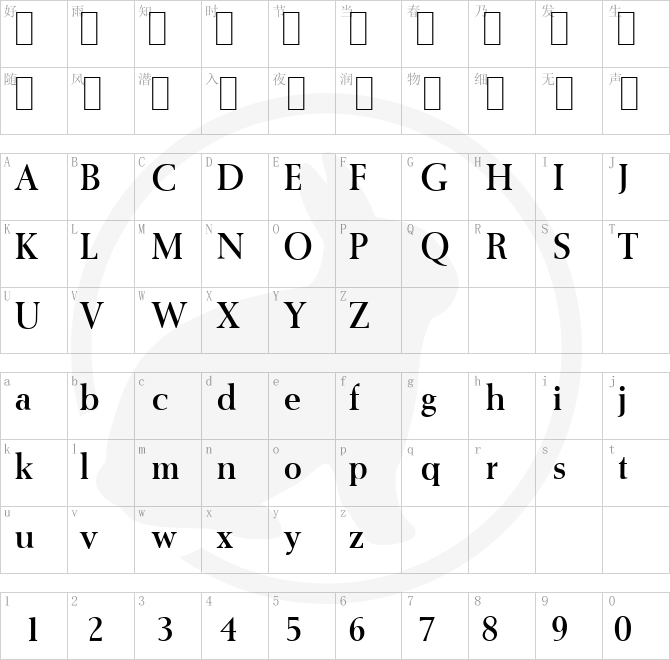
- Font Name:I772-Roman
I772-Roman-Bold.ttf is a very beautiful artistic font, I772-Roman-Bold.ttf is widely used in the design and printing of various books and pictures,I772-Roman-Bold.ttf has a strong visual impact,I772-Roman-Bold.ttf is a commonly used font in newspapers, magazines and books, and is used in posters, e-commerce Poster design, store design, logo design, font design and other fields.I772-Roman-Bold.